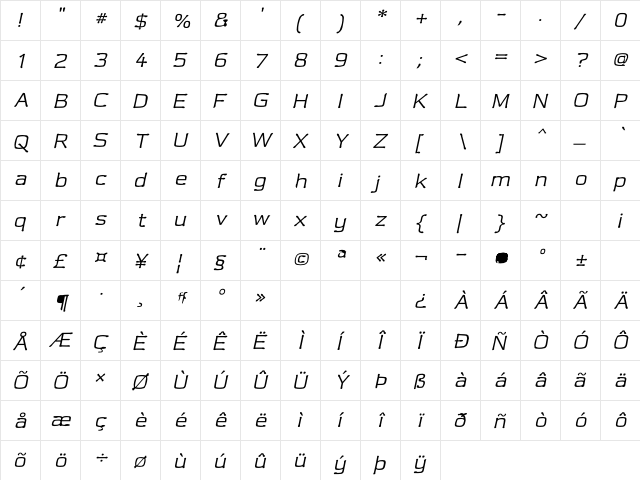
Nightmare Revisited Regular
| Foundry | Graham Meade |
Design Context for Nightmare Revisited Typeface
Nightmare Revisited takes a measured approach to typography — its balanced proportions and neutral character make it a reliable workhorse for both digital and print work.